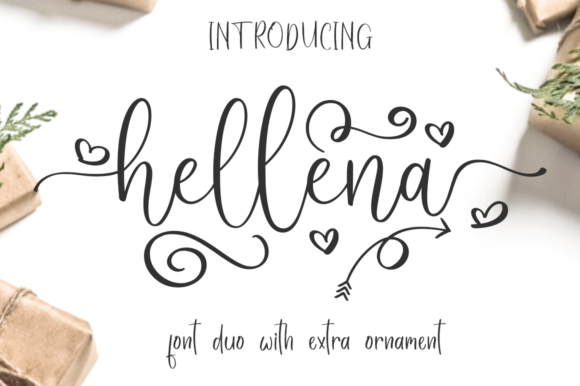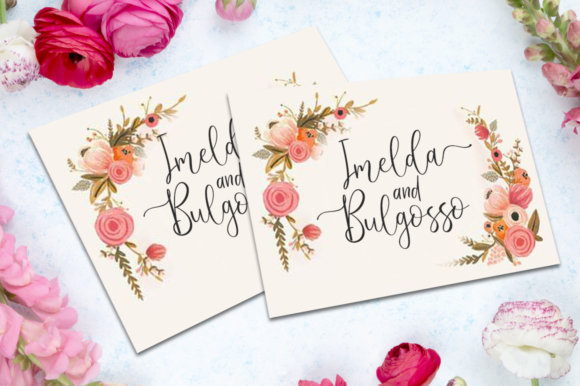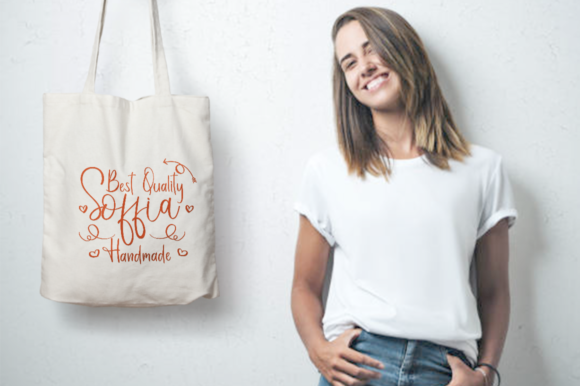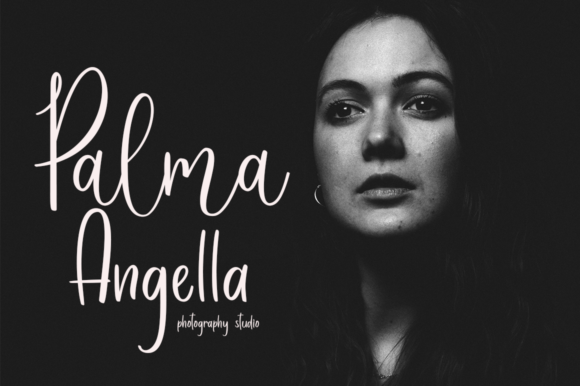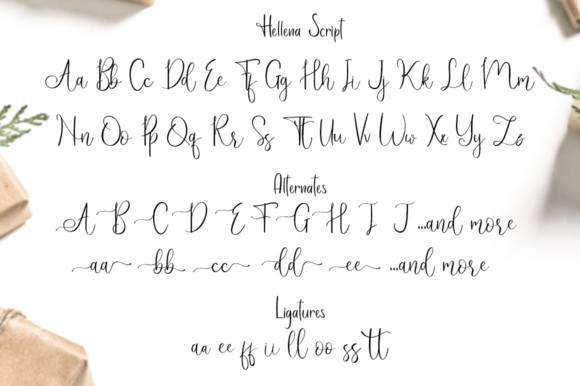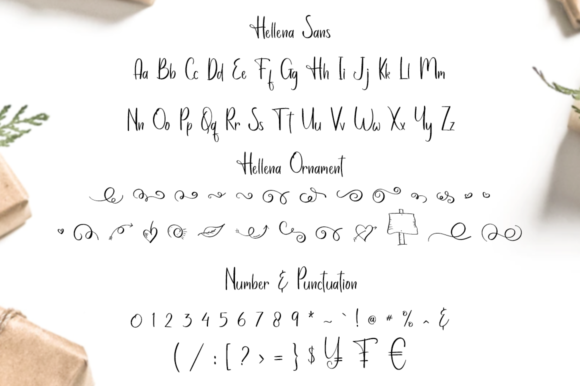
HomeScript FontsHellena Font Script Fonts Hellena Font FacebookXPinterestWhatsApp Hellena Font Poster 2 Hellena Font Poster 3 Hellena Font Poster 4 Hellena Font Poster 5 Hellena Font Poster 6 Hellena Font Poster 7 About Hellena Font Hellena is a sweet and charming script with beautiful heart-themed swashes, making it the ideal crafting font! DOWNLOAD NOW People also explored Rose Blank Font The Kids Shotflick Font Halloween Pumpkin Font Pumpkin Pie Lattes Font Solid Navy Triblend Bella Canvas 8413 Home Education Gadiya Font Pablo Duo Font 261 0 TagsHellena Font Previous articleBrighte FontNext articleAmlight Font LEAVE A REPLY Cancel reply Comment: Please enter your comment! Name:* Please enter your name here Email:* You have entered an incorrect email address! Please enter your email address here Website: Save my name, email, and website in this browser for the next time I comment. Personal Use Free Shawaki Personal Use Free Read more about this font Pan Pizza Personal Use Free Read more about this font Sathscha Personal Use Free Read more about this font Oatmeal Personal Use Free Read more about this font BLOG The 10 Best Handwriting Fonts to Add Personality to Your Designs 10 of the Best Handwriting Fonts for Adding Personality to Your Designs There will undoubtedly be no other better choice than handwriting fonts to give... To increase your work productivity, choose the most readable fonts. Best Fonts for YouTube Videos: Make Your Thumbnails Stand Out Fonts That Capture the Spirit of New York City